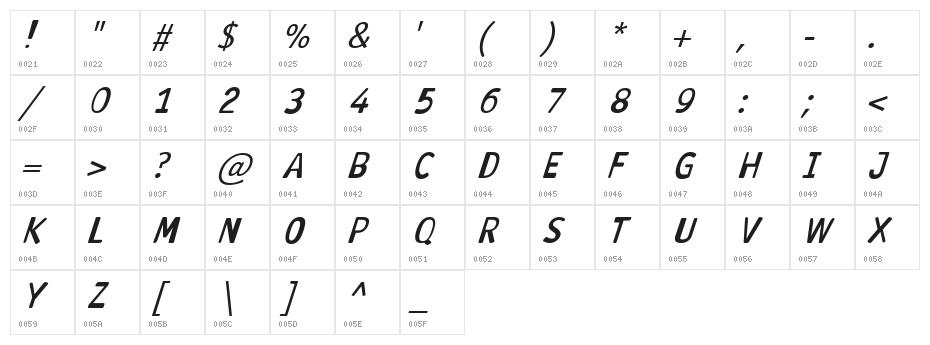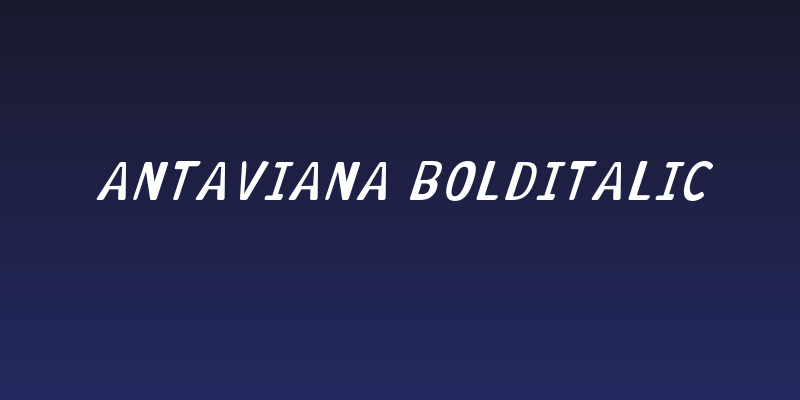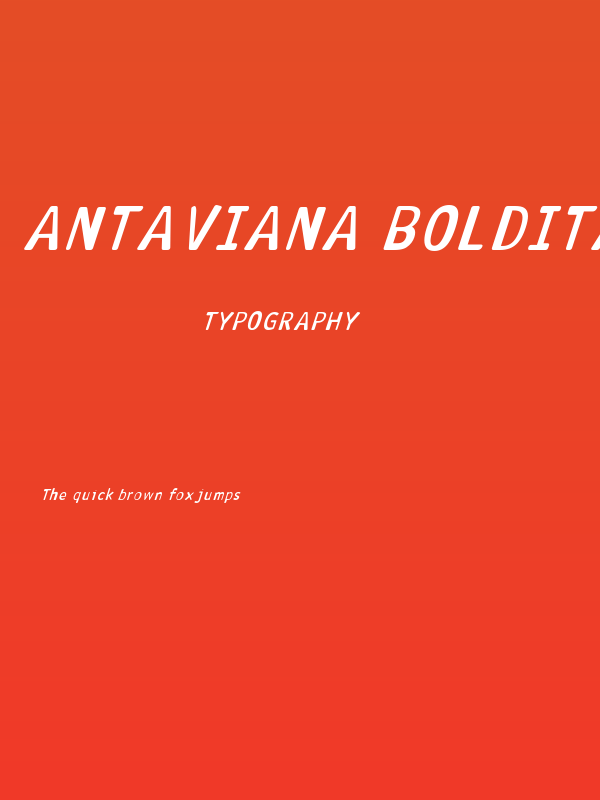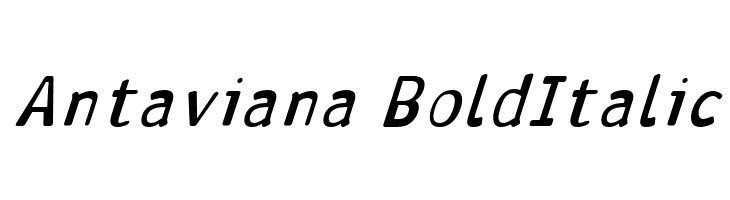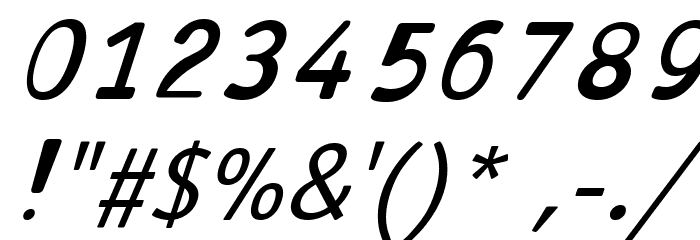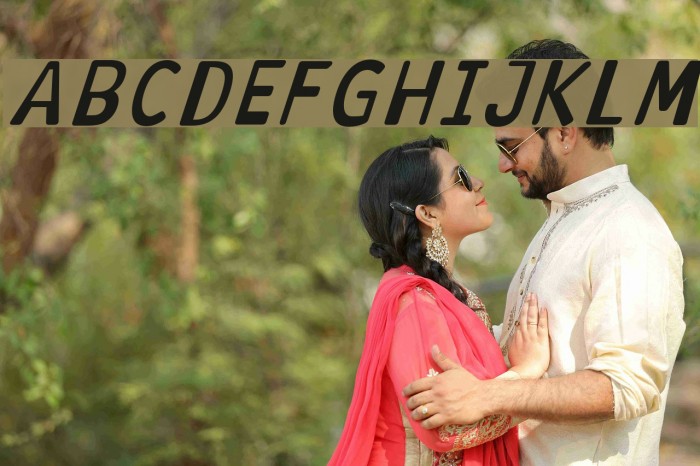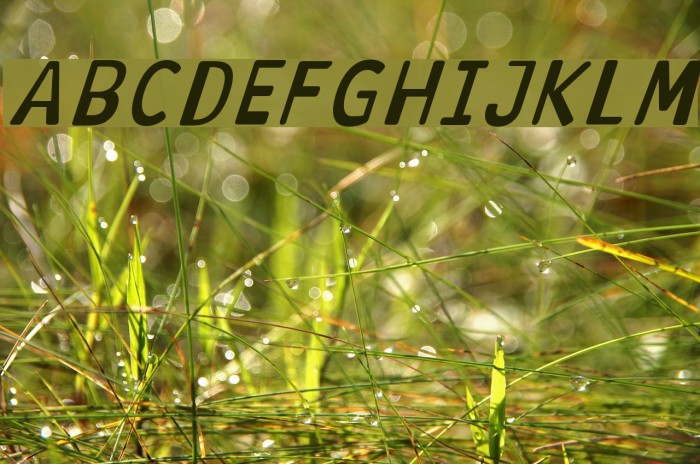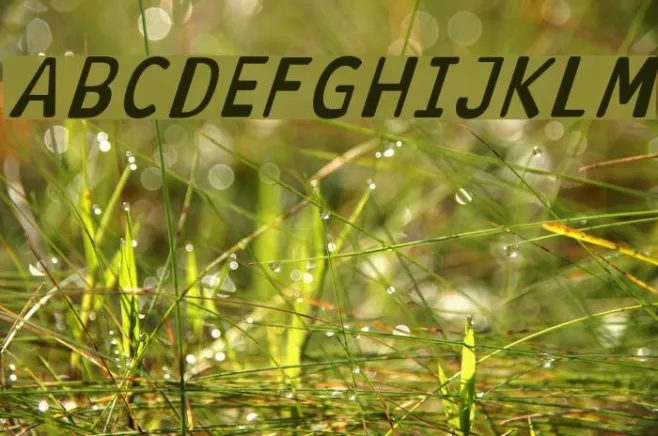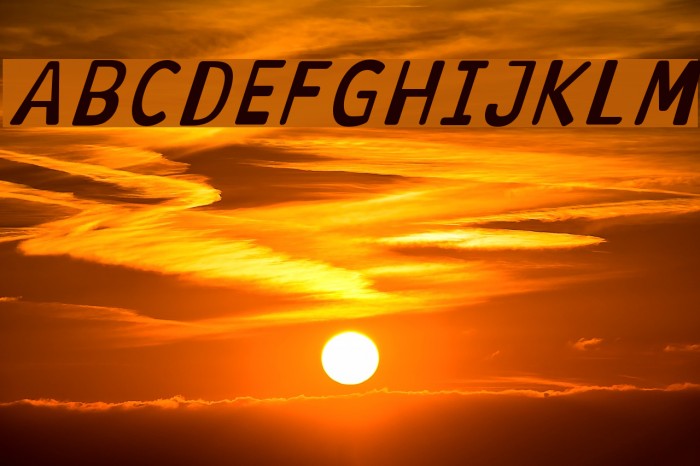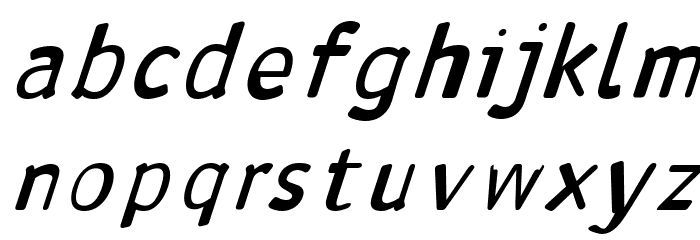
Antaviana BoldItalic Font
Antaviana BoldItalic Description
This font features a bold and italic style, characterized by its dynamic and slanted appearance. The letters are well-defined with a consistent stroke width, offering a modern and sleek look. The uppercase and lowercase letters maintain a uniform slant, enhancing the italic effect. The numerals are clear and legible, matching the overall style of the alphabet. Special characters are included, providing versatility for various uses. The font's design is both professional and stylish, making it suitable for a wide range of applications.
| Use Case | Headlines, Logos, Branding |
| Proposed Projects | Ideal for branding, advertising, and editorial design projects. |